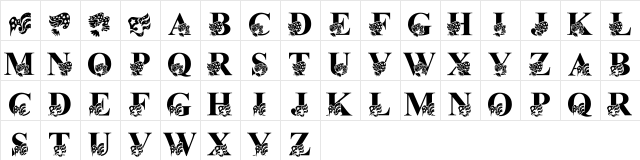
LMS America LSF Regular
Design Context for LMS America LSF Typeface
LMS America LSF is a composed and adaptable typeface that performs quietly and consistently across a wide range of design contexts.